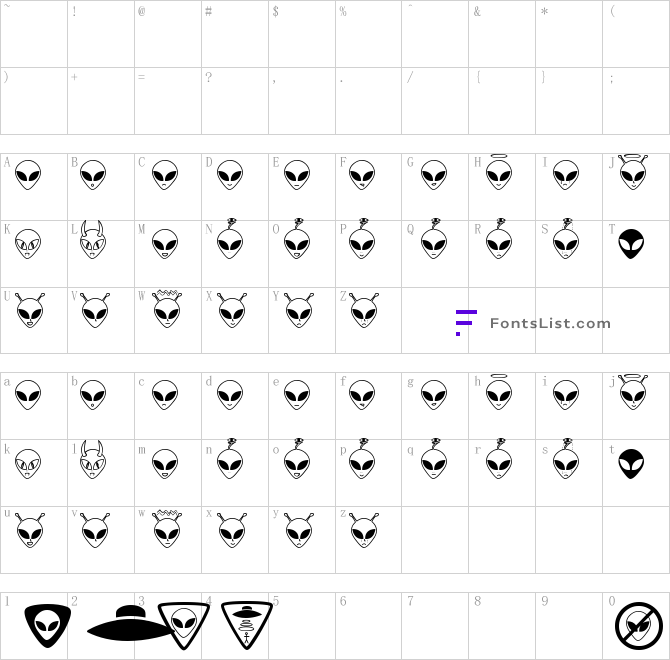
- Font Name:Aliencons TFB
Aliencons-TFB.ttf is a very beautiful artistic font, Aliencons-TFB.ttf is widely used in the design and printing of various books and pictures,Aliencons-TFB.ttf has a strong visual impact,Aliencons-TFB.ttf is a commonly used font in newspapers, magazines and books, and is used in posters, e-commerce Poster design, store design, logo design, font design and other fields.Aliencons-TFB.